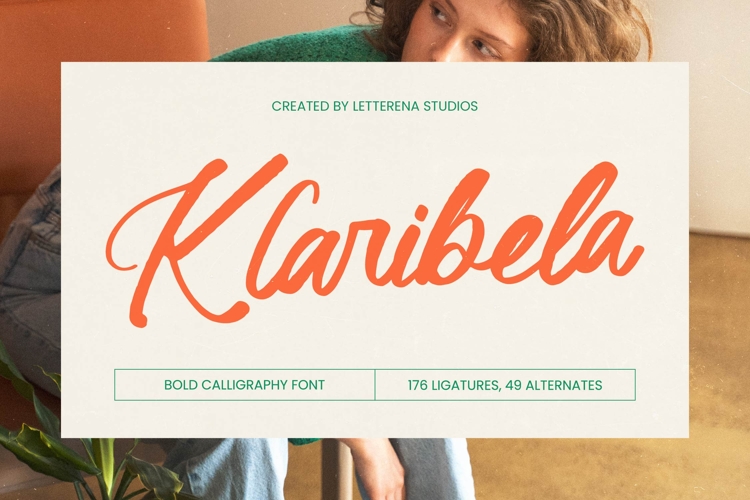
Klaribela - Bold Calligraphy Font
Elevate your creative vision with a typeface that embodies sophisticated energy and hand-crafted precision. Klaribela - Bold Calligraphy Font stands out as a premier choice for designers seeking a commanding visual presence. This high-impact script features a rhythmic flow and robust weight that ensures readability without sacrificing its artistic soul. With its fluid strokes and organic texture, Klaribela - Bold Calligraphy Font provides an authentic, hand-drawn aesthetic that captures the viewer's attention instantly.
Transform standard text into a bespoke masterpiece through an impressive array of typographic features. Boasting an extensive collection of 176 ligatures and 49 alternates, Klaribela - Bold Calligraphy Font offers unparalleled flexibility for custom lettering. These smart OpenType features allow for seamless character connections, giving your layouts a truly unique and professional finish. By choosing Klaribela - Bold Calligraphy Font, you gain access to a dynamic toolkit that simplifies the creation of high-end, custom-looking typography.
Bridge the gap between local charm and global appeal with a font built for international reach. With its extensive multilingual support, Klaribela - Bold Calligraphy Font adapts seamlessly across global markets, making it incredibly versatile for international projects. This robust character set ensures your brand message remains consistent and impactful, regardless of the linguistic requirements. Whether you are targeting European markets or expanding worldwide, Klaribela - Bold Calligraphy Font serves as a dependable typographic foundation for modern communication.